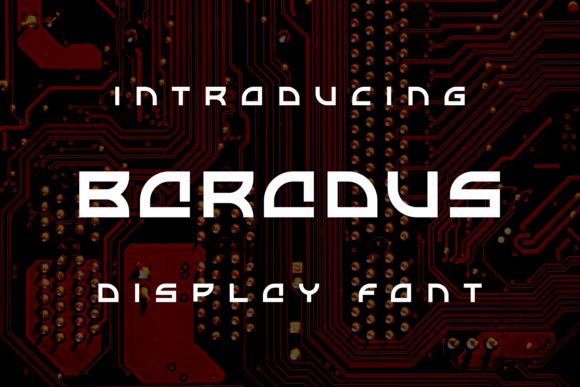
Journey into the world of typography with Baradus, a display font that captivates with its cool and unique charm. This meticulously crafted font, born from the creative mind of lelevien, is a visual masterpiece that adds a touch of elegance and distinction to your designs. Dive into a realm of endless possibilities, where Baradus becomes your trusted companion, transforming your words into works of art.
With Baradus, you'll discover a font that dances effortlessly between traditional and contemporary styles, appealing to a wide range of audiences. Its intricate details and smooth curves evoke a sense of nostalgia, while its modern flair keeps it relevant and stylish. Whether you're crafting wedding labels, invitations, or any other creative project, Baradus is your go-to choice for making a lasting impression.
Embrace the versatility of Baradus and watch it seamlessly adapt to your diverse design needs. From elegant logos and branding materials to eye-catching social media graphics, Baradus shines in every setting. Unleash your creativity and explore the boundless possibilities that await you with this extraordinary font.
Step into a world of visual enchantment with Baradus. This display font is more than just a collection of letters; it's an artistic expression that breathes life into your designs. Its intricate details and captivating curves draw the eye, creating a visual symphony that resonates with your audience. Experience the transformative power of Baradus and elevate your designs to new heights.